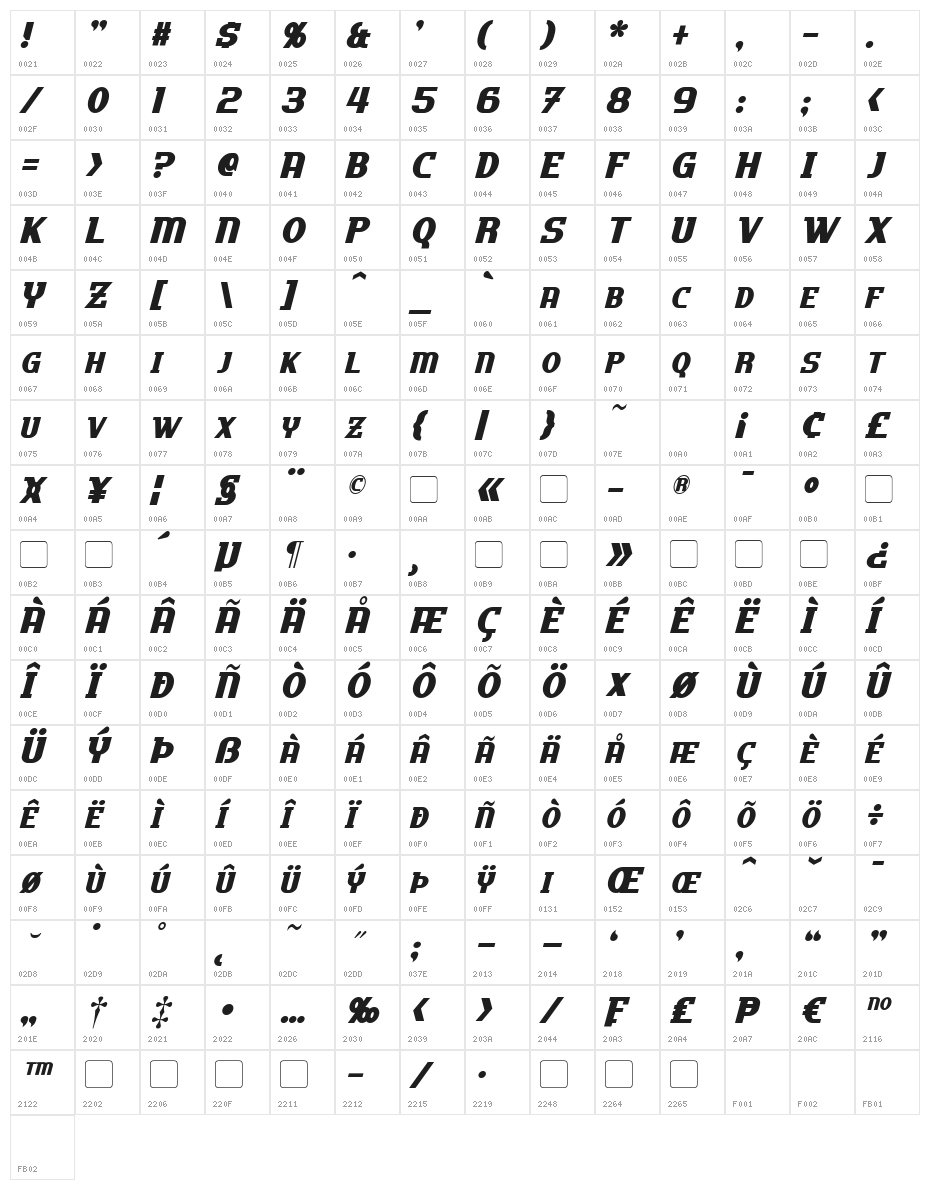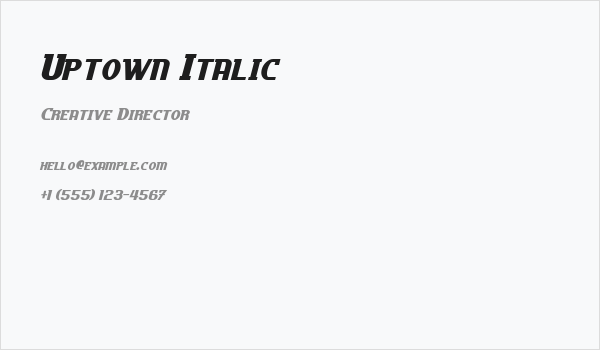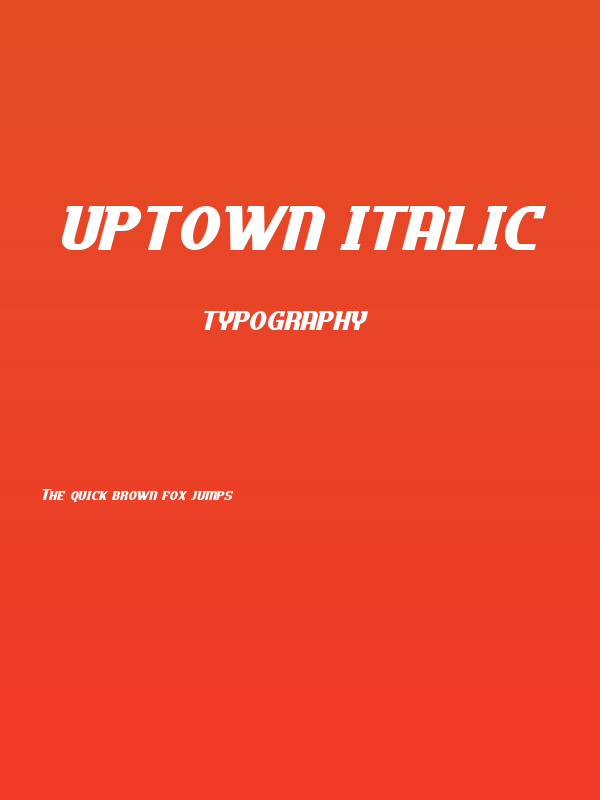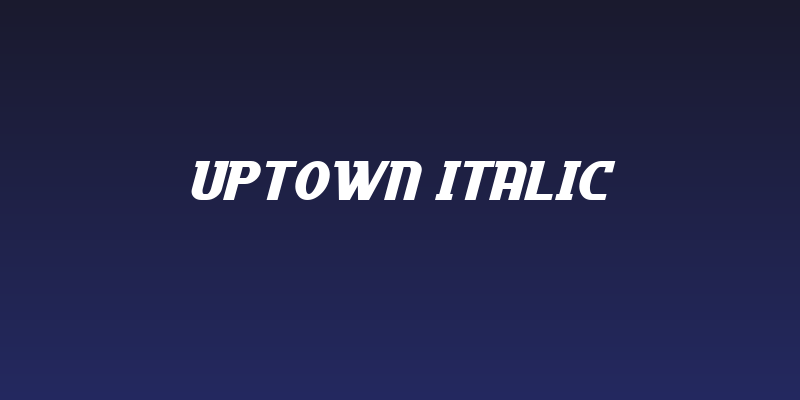
Uptown Italic Font
Uptown Italic Description
This font features a bold and dynamic italic style, characterized by its strong, slanted letterforms that convey a sense of movement and energy. The strokes are thick and consistent, providing a robust appearance suitable for impactful designs. The uppercase and lowercase letters maintain a uniform slant, enhancing the cohesive look of the text. The numbers and special characters are designed to match the boldness and slant of the alphabet, ensuring a harmonious overall appearance. This font is ideal for projects that require a bold statement, combining both modern and classic elements.
| Proposed Projects | Ideal for branding, headlines, posters, and advertising where a strong visual impact is needed. |